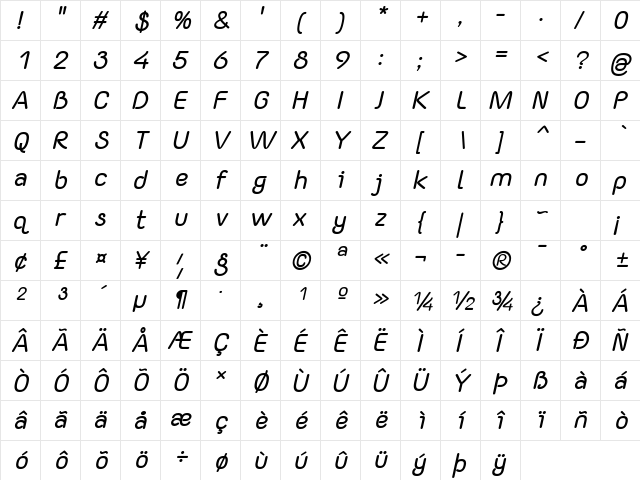
Yaahowu Bold Italic Italic
| Designer | Situjuh Nazara |
Design Context for Yaahowu Bold Italic Typeface
Yaahowu Bold Italic offers clean, dependable letterforms without strong stylistic allegiance, making it a practical choice for designers who need flexibility. The slanted form adds forward momentum and visual energy. Its bold stroke weight gives it real presence on the page.